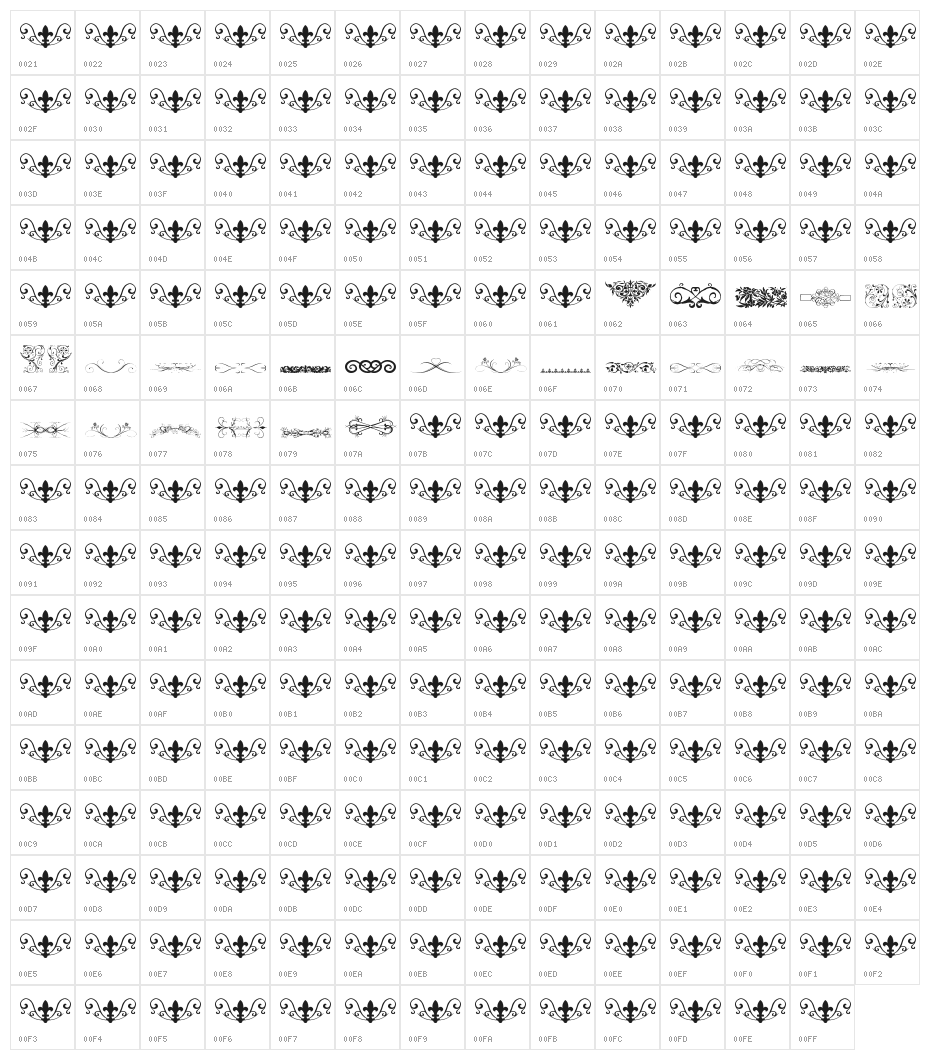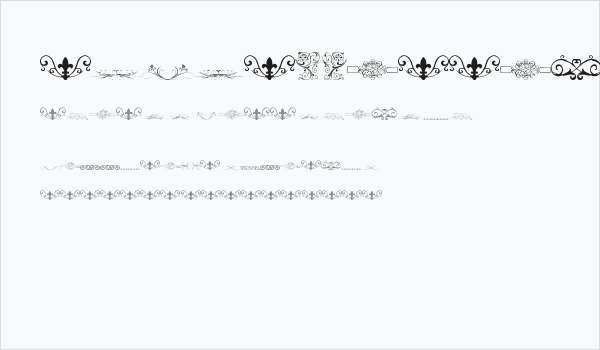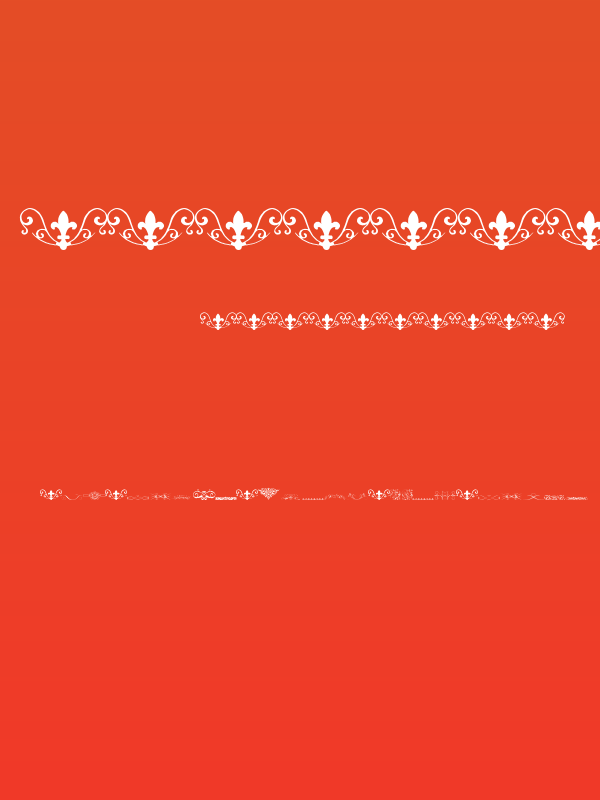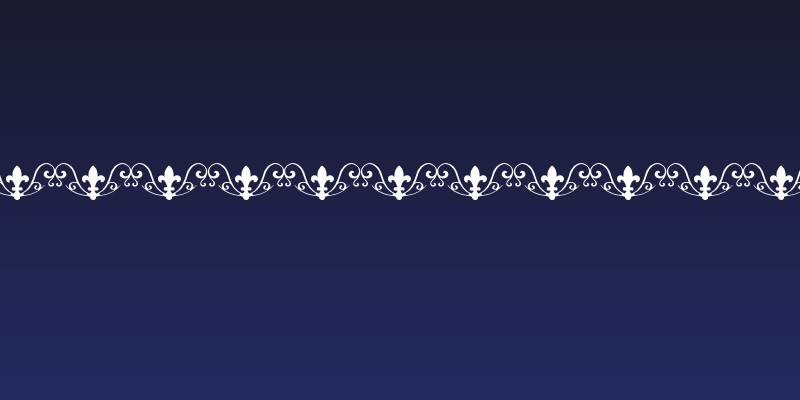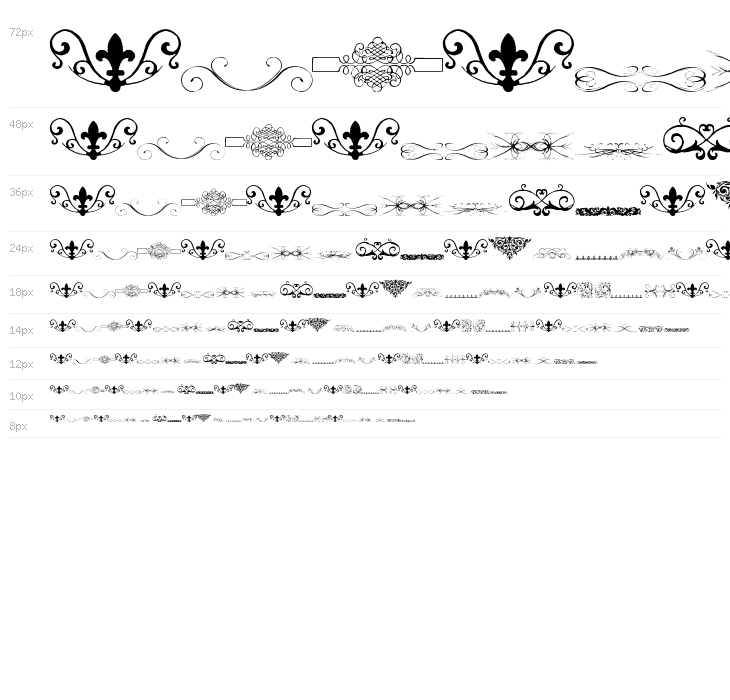
Vintage Decorative Signs 20 Font
Vintage Decorative Signs 20 Description
A collection of ornate, vintage-inspired decorative border elements featuring flourishes, fleur-de-lis motifs, and intricate linework. The designs are highly ornamental and intended for embellishment rather than text communication.
| Overall Style | Vintage, Decorative |
| Use Case | Borders, Frames, Decorative accents |
| Proposed Projects | Wedding invitations, certificates, vintage posters, decorative signage, book covers, scrapbooking. |